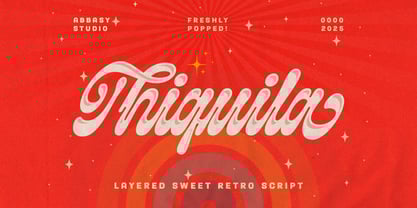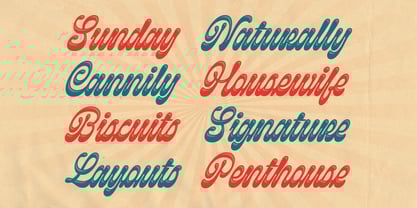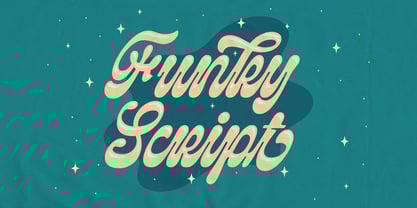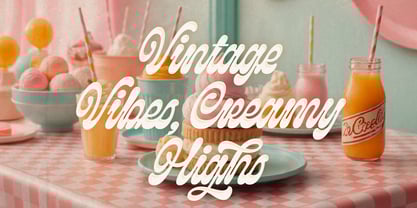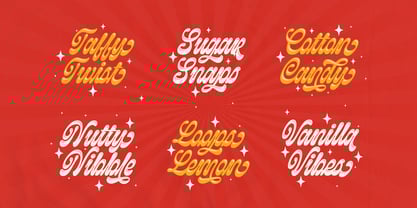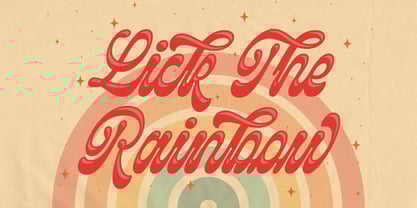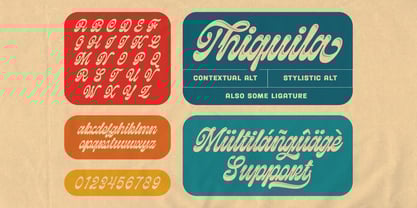
Thiquila
by Abbasy Studio
The Thiquila Font Family was designed by Angga Kristiandri and published by Abbasy Studio. Thiquila contains 2 styles and family package options.
Thiquila — Layered Sweet Retro Script Typeface
Thiquila is a layered retro script typeface bursting with energy and joy, inspired by the playful, funky, and colorful aesthetics of the ‘70s and ‘80s. With smooth flowing letterforms and ornamental curves, Thiquila blends classic hand-lettering charm with a modern pop twist.
Key Features:
- Layered Typeface: Perfect for shadow effects and vibrant color highlights.
- Retro Script Style: Soft connected letters with dramatic swashes.
- Fun & Friendly Look: Ideal for food branding, retro concert posters, drink packaging, and lifestyle fashion.
- Full of Character: Evokes the nostalgia of milk bars, neon diners, and summer vibes.
Perfect For:
- Retro-style posters and flyers
- Vintage F&B product logos
- Nostalgia-themed invitations
- 70s–80s revival merchandise
- Pop/disco album covers
Leave a sweet impression with every letter — let Thiquila take you back to a world of flavor and color.